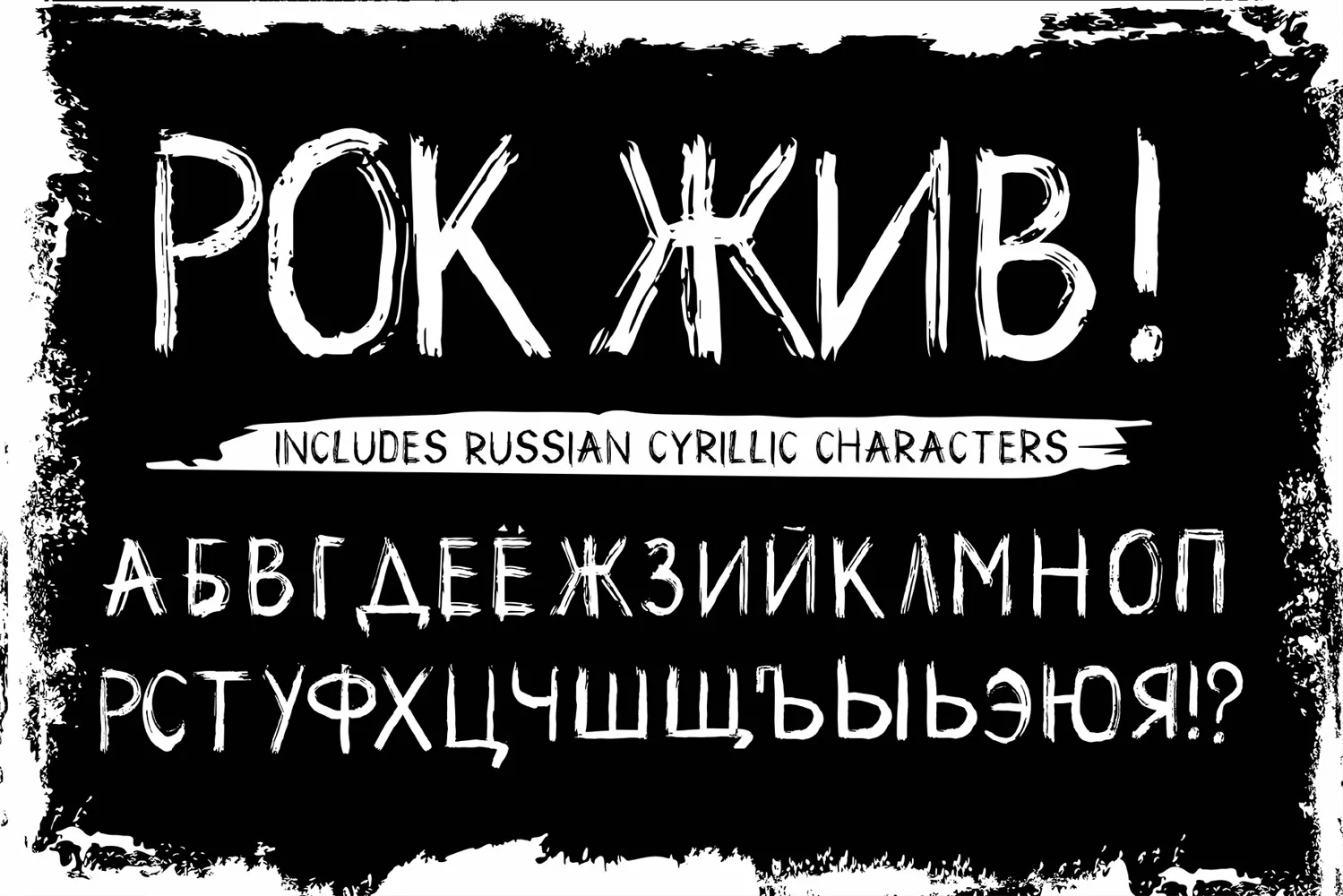
Drum is a handmade brush display font in grunge style. Grunge, vintage and retro style fonts are amazing choices to add to your font library and Drum is no exception. This grunge style font is perfect for headlines,logos, quotes, tshirts, rock festivals and more. Grunge it up with Drum and channel your inner rock star!